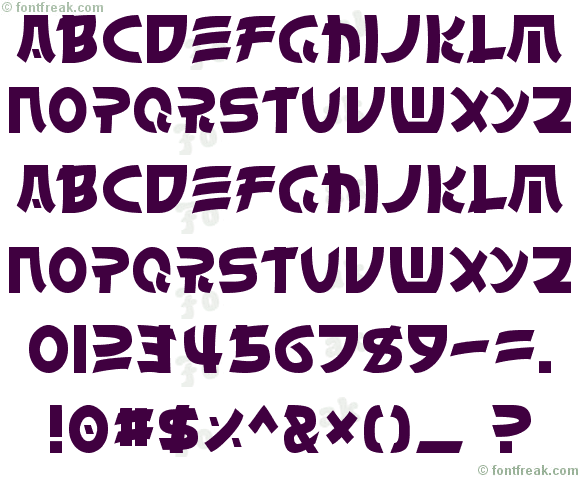
Chinyen Normal
About Chinyen
Chinyen is a captivating display font designed by Neale Davidson, categorized as a decorative typeface. With its unique blend of bold strokes and distinct geometric forms, this font draws attention and adds a playful yet sophisticated charm to any design project. The characters exhibit a moderate stroke weight that varies across the letters, creating an engaging rhythm and visual interest. The spacing is thoughtfully balanced, ensuring legibility while maintaining an artistic flair, making it suitable for a range of creative applications.
Ideal for use cases such as eye-catching restaurant menus, vibrant movie posters, and trendy branding materials, Chinyen effortlessly enhances the visual narrative of any design. Its distinctive style also makes it an excellent choice for event invitations, particularly for occasions that demand a touch of creativity and whimsy, such as weddings or art exhibitions. Graphic designers and small business owners will particularly appreciate the versatility and character that Chinyen brings to their projects, allowing them to create memorable impressions.
What sets Chinyen apart is its ability to combine artistic expression with functionality, making it a standout choice for anyone looking to capture attention and convey a message with flair. Its playful design encourages creativity, ensuring that any project utilizing this font will leave a lasting impact.